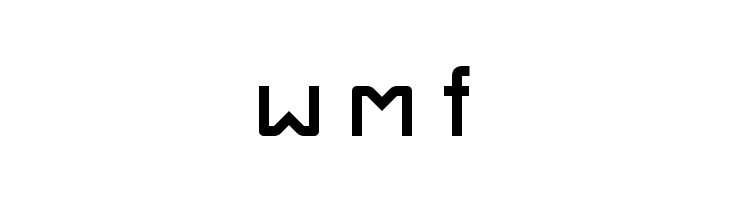
Smash Hit Font
A modern, geometric font with clean lines and angular shapes.
Smash Hit Light Font
A modern, geometric font with clean lines and a minimalist aesthetic.
Smash Hit Thin Font
A sleek, geometric font with thin lines and a modern aesthetic.